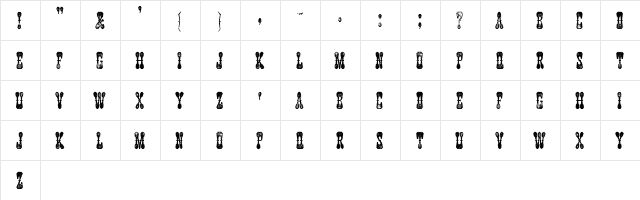
Aubrey Landing WF Condensed
| Designer | Walden Font Co. |
Design Context for Aubrey Landing WF Typeface
Aubrey Landing WF is a composed and adaptable typeface that performs quietly and consistently across a wide range of design contexts. The condensed width makes it efficient for tight spaces without sacrificing legibility.